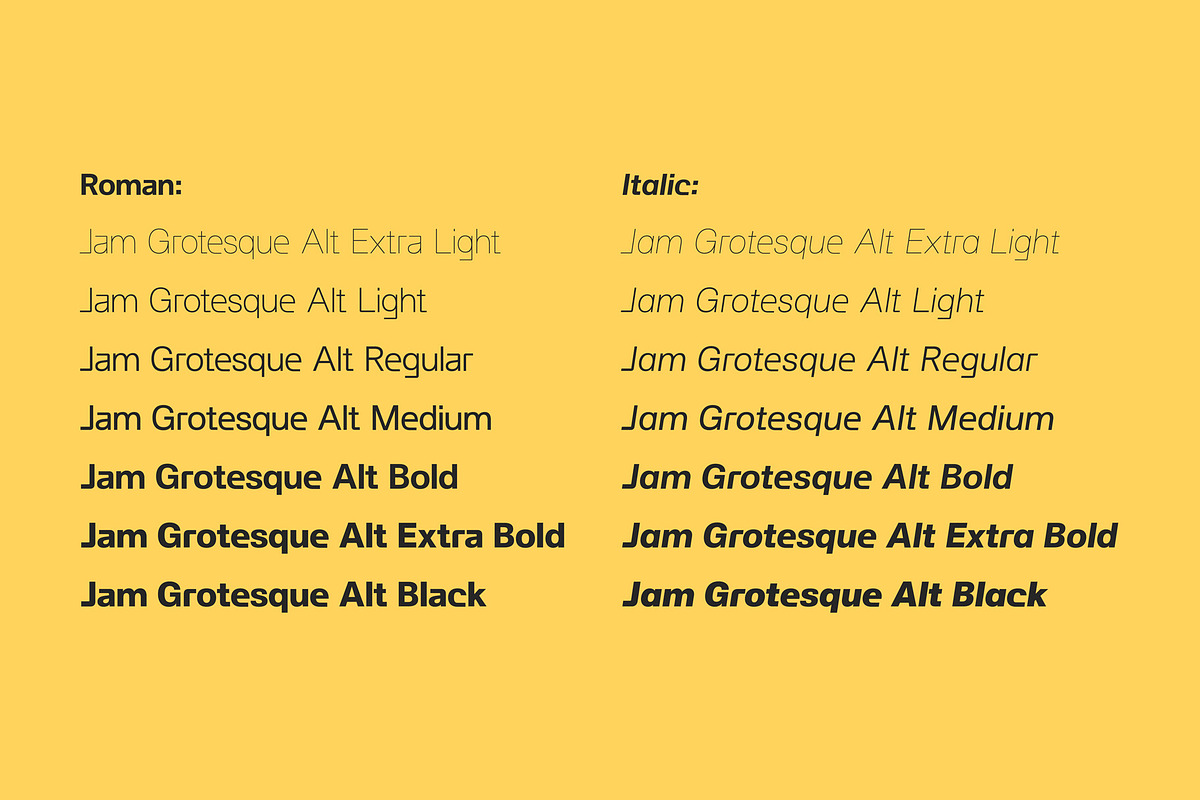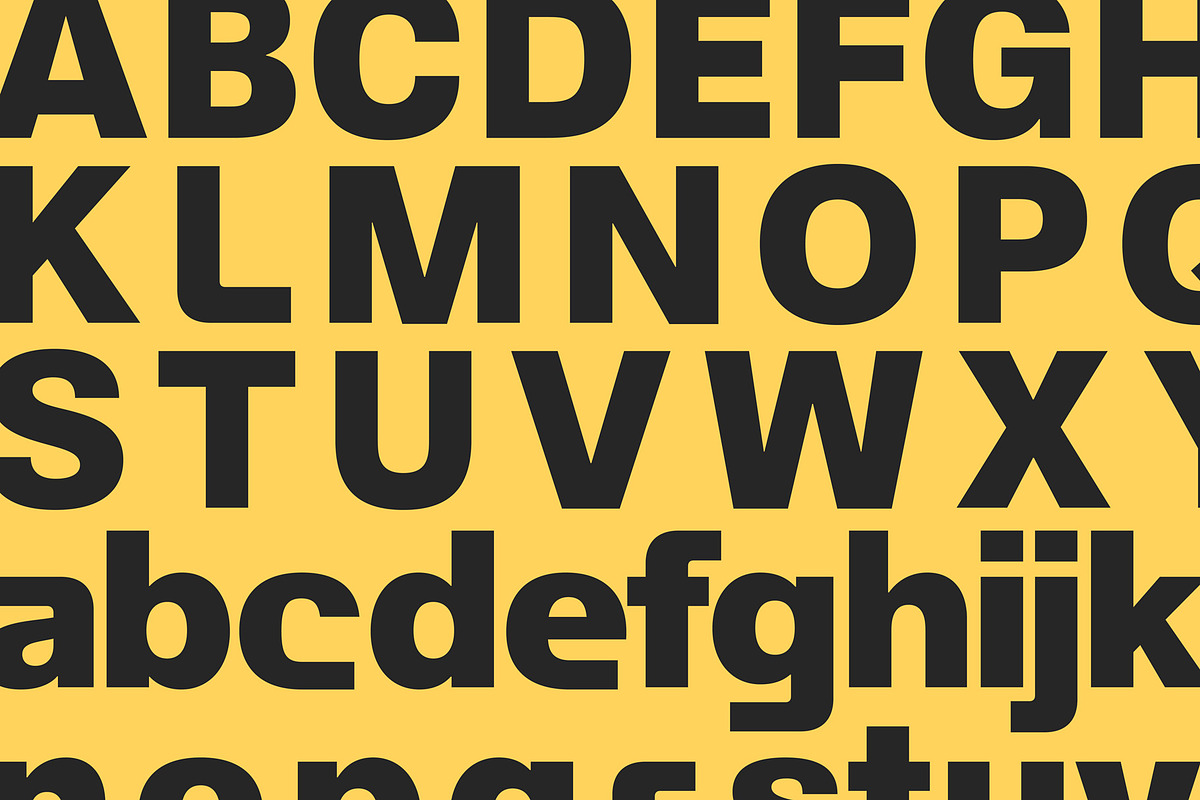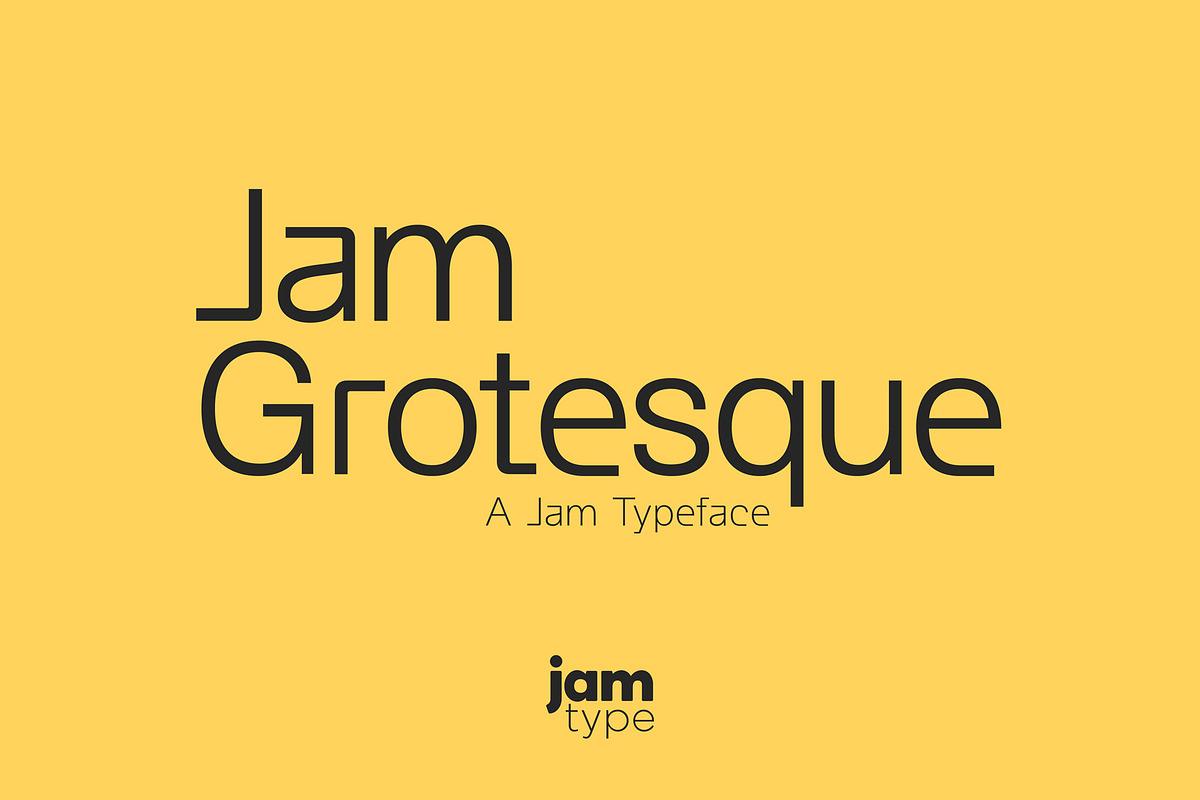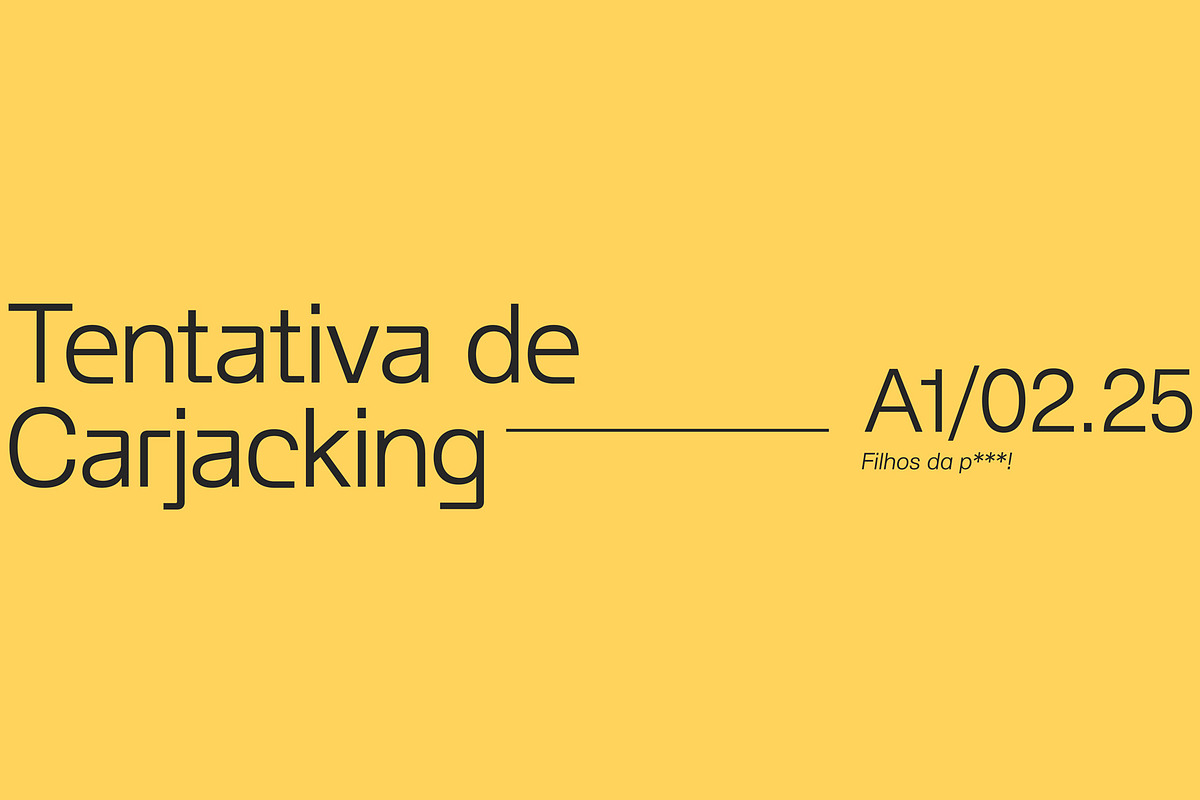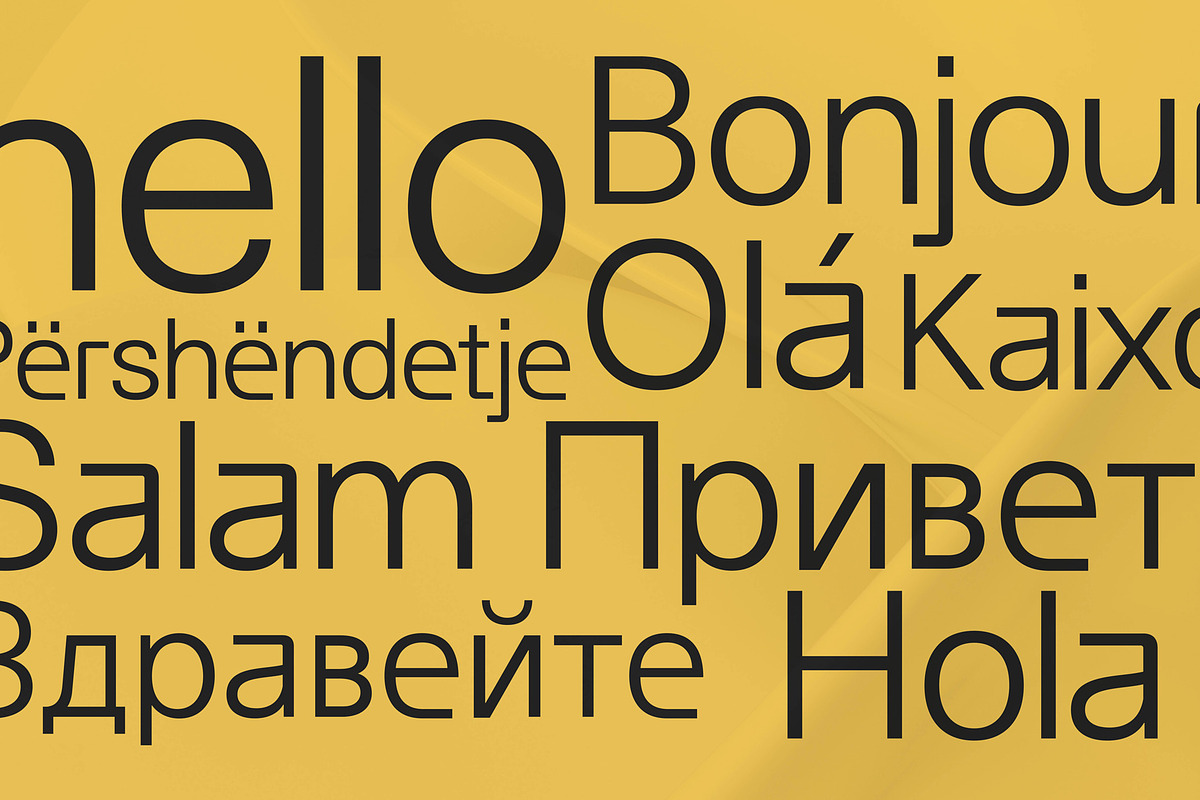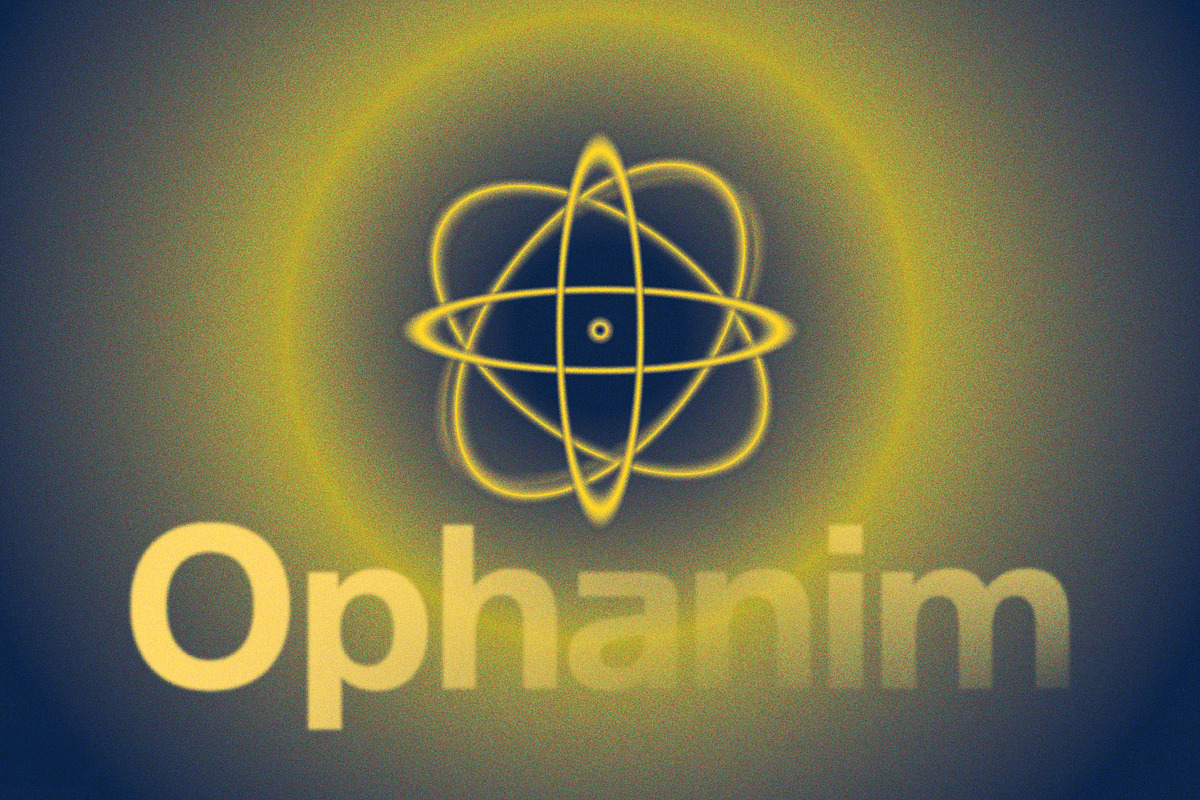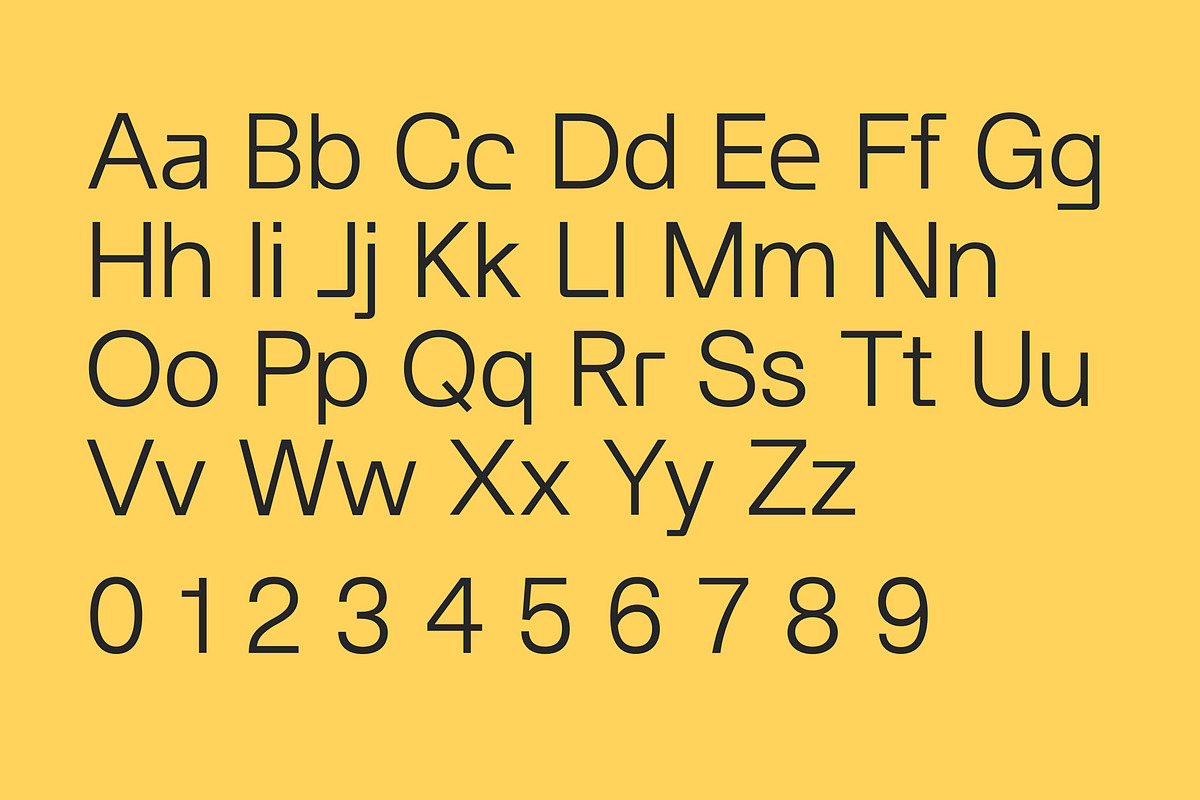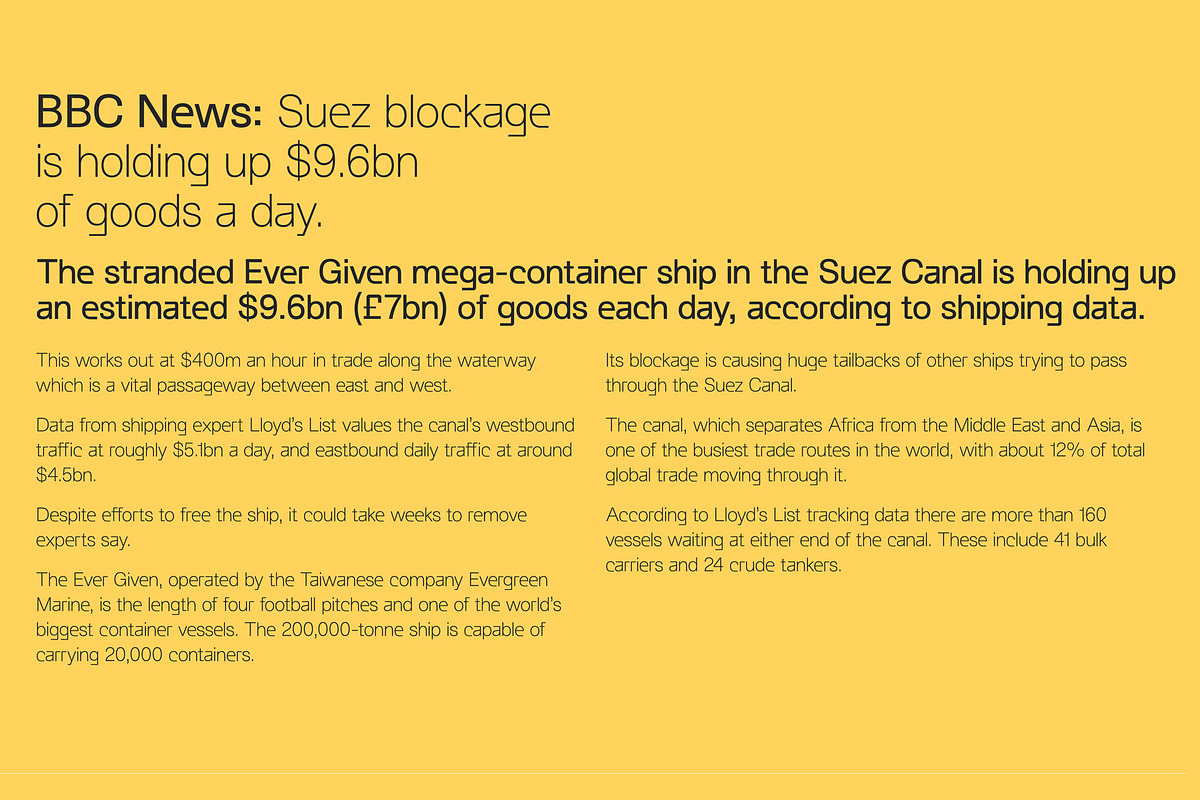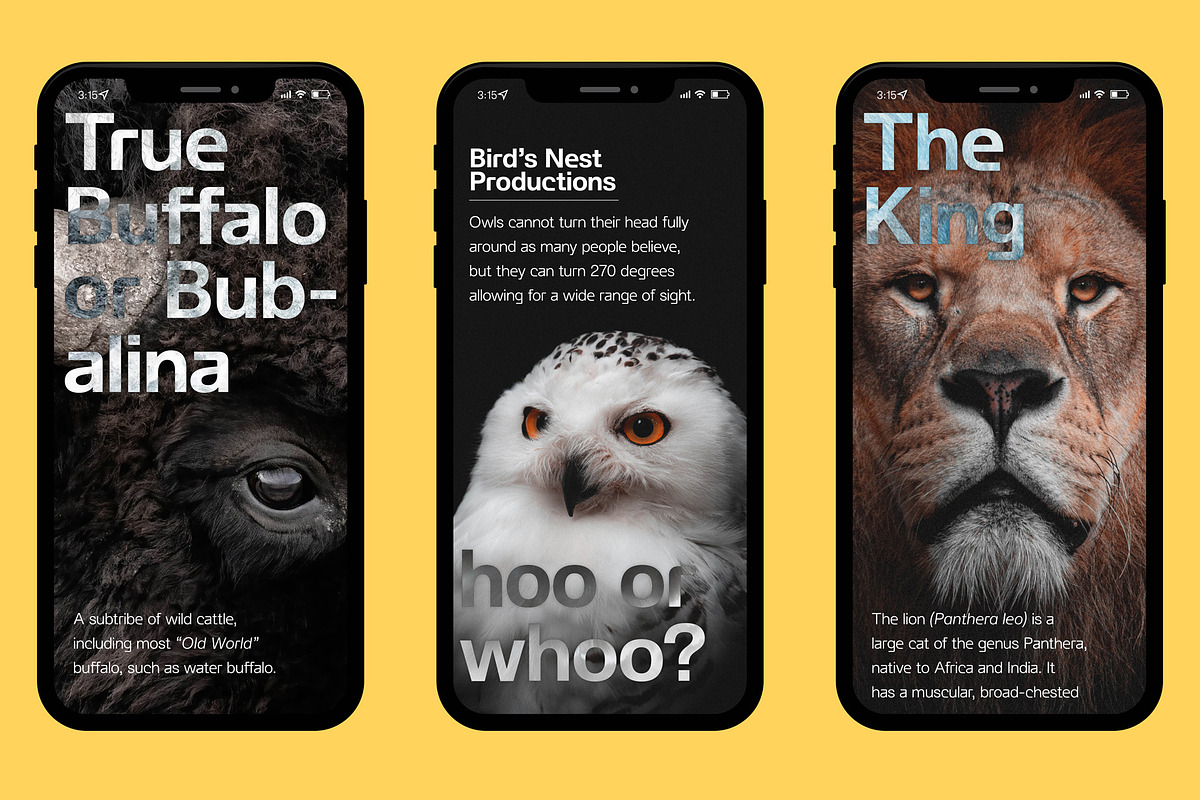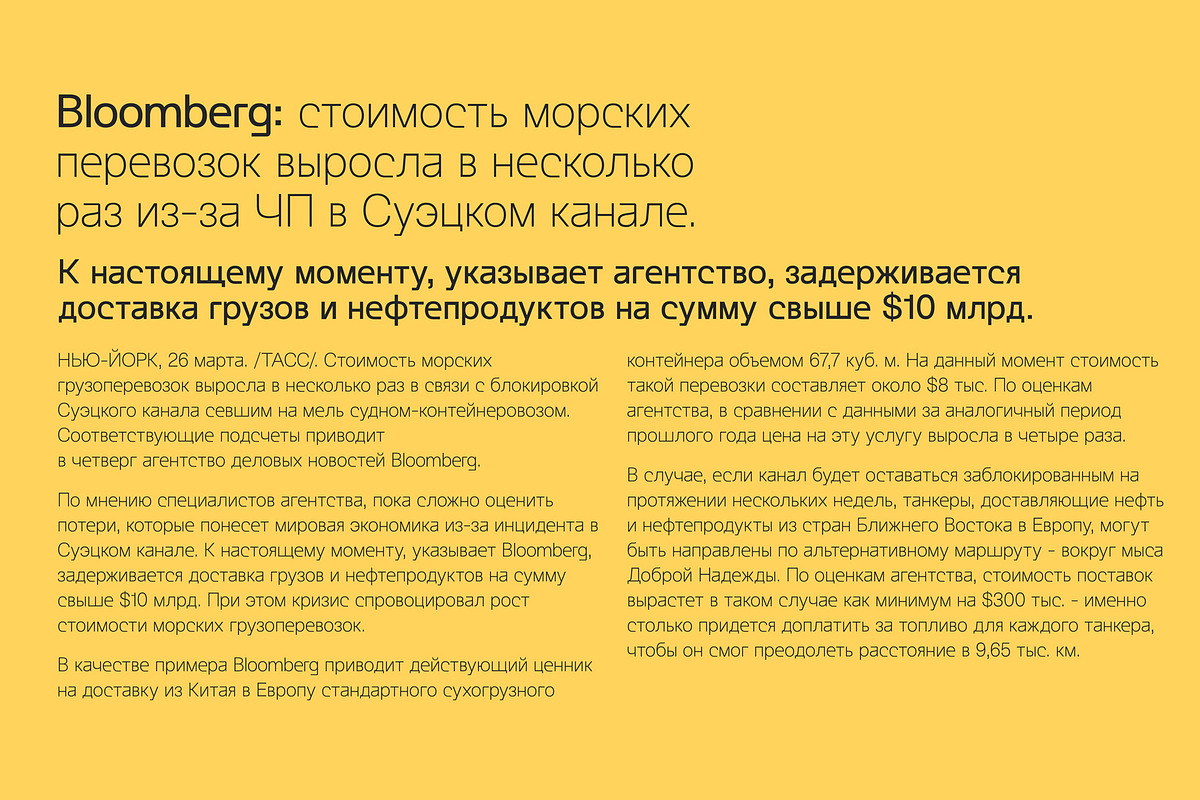
Jam Grotesque Alt
Jam Grotesque Alt – A Modern Evolution of a Timeless Sans Serif
Building upon the foundation of Jam Grotesque, Jam Grotesque Alt introduces a fresh, modern take on the classic sans serif form. Retaining the clean, functional aesthetic of the original, this refined adaptation brings subtle contemporary refinements, making it even more versatile for today’s design landscape.
With streamlined proportions, enhanced letterforms, and a refined rhythm, Jam Grotesque Alt balances precision and warmth, making it ideal for branding, editorial design, UI/UX, and digital experiences. Whether in print or on screen, its polished structure ensures clarity, impact, and effortless readability at any scale.
Designed for modern creatives and brands, Jam Grotesque Alt delivers a sleek, forward-thinking alternative while maintaining the essence of a timeless grotesque. Perfect for those who appreciate heritage with a contemporary edge, this type family is a powerful addition to any typographic toolkit.
Experience the evolution of simplicity with Jam Grotesque Alt – where classic form meets modern refinement.